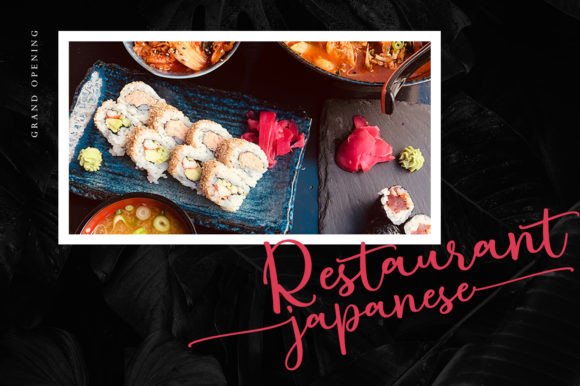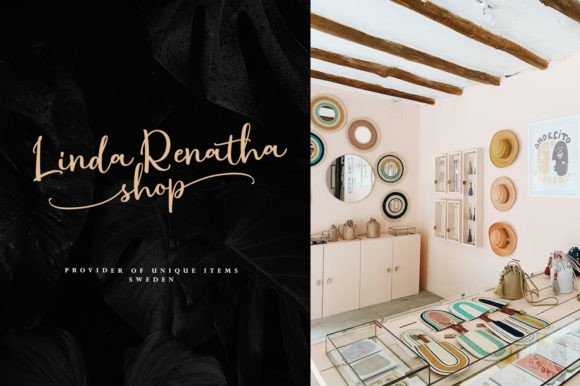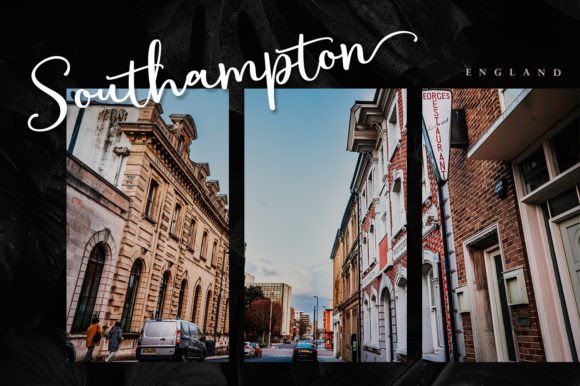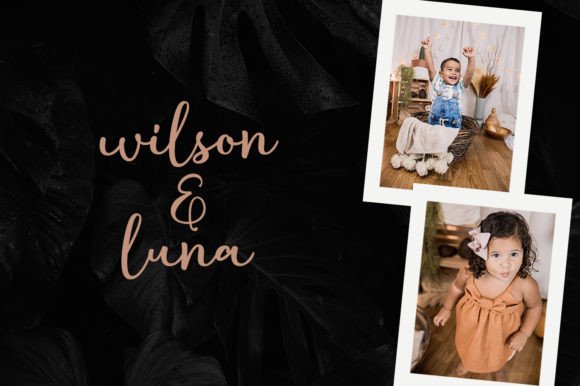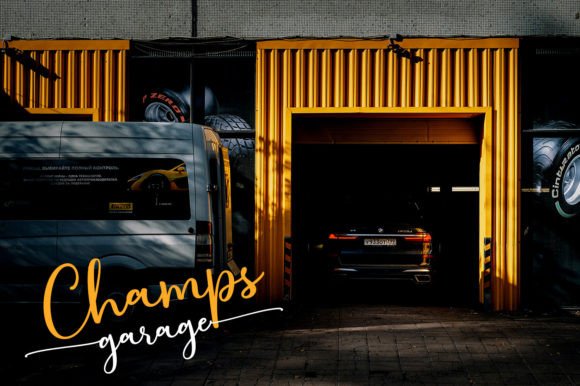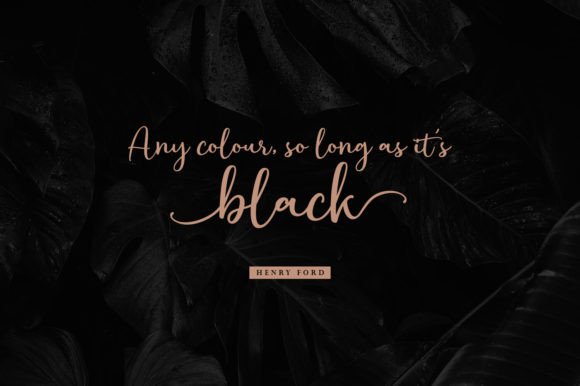
Introduction to Louisalkan Font
This is a handwritten script font with a natural, elegant, and simple style.
Made slowly and carefully to provide natural and modern elements The great thing about this font is you can find some styles when you use it, for example, such as natural handwriting style, unique, simple, elegant, and luxurious.
Key Features of Louisalkan Font
Why Choose Louisalkan Font?
Louisalkan Font offers exceptional quality and versatility, making it a valuable addition to your design toolkit. Whether you’re creating for personal projects or commercial use, Louisalkan Font delivers professional results.